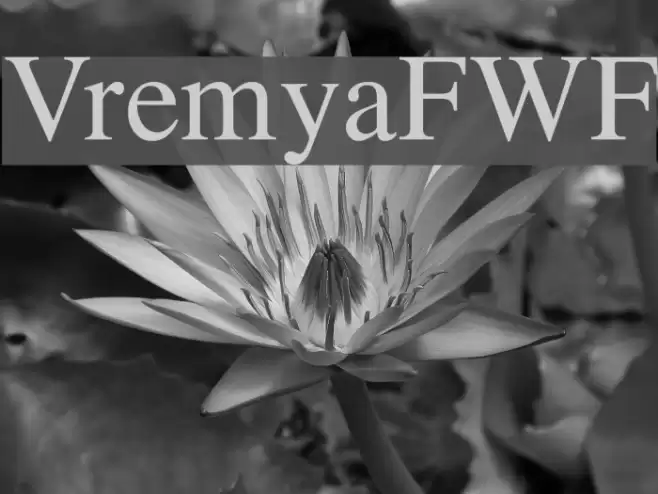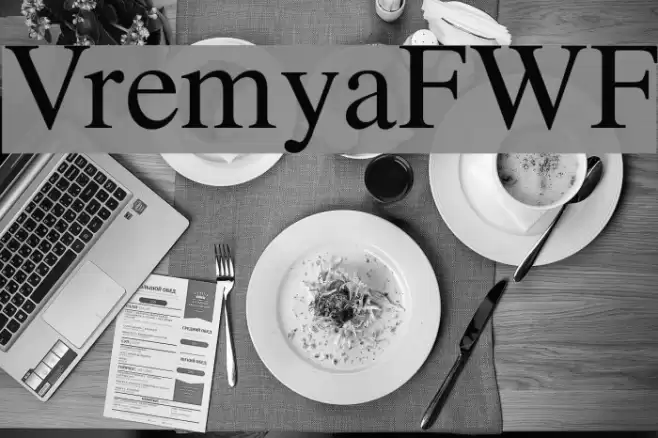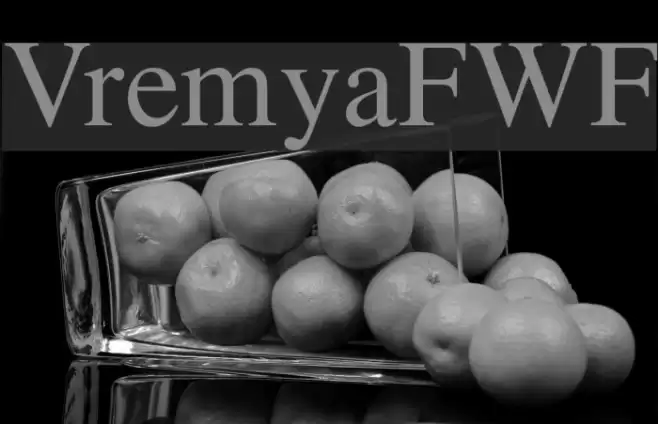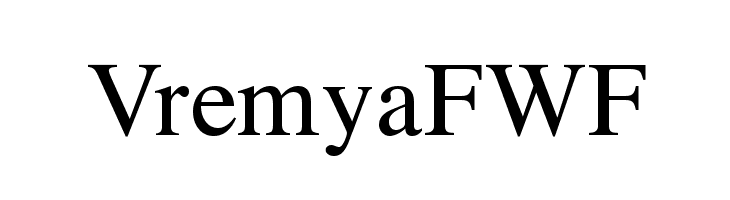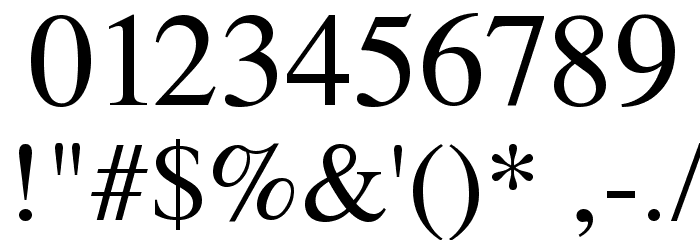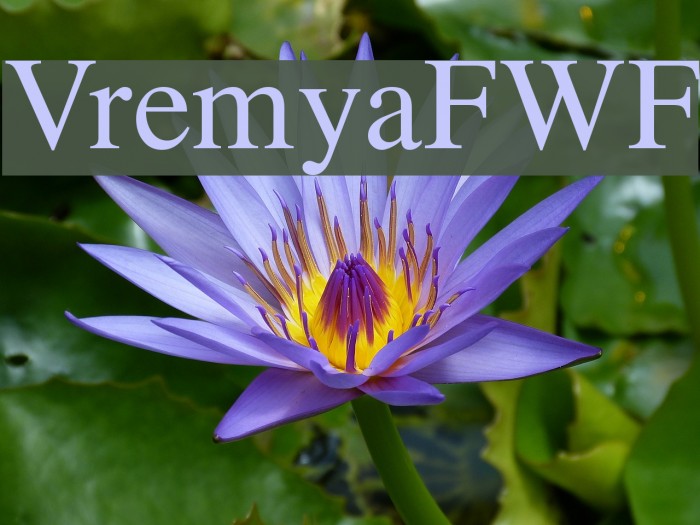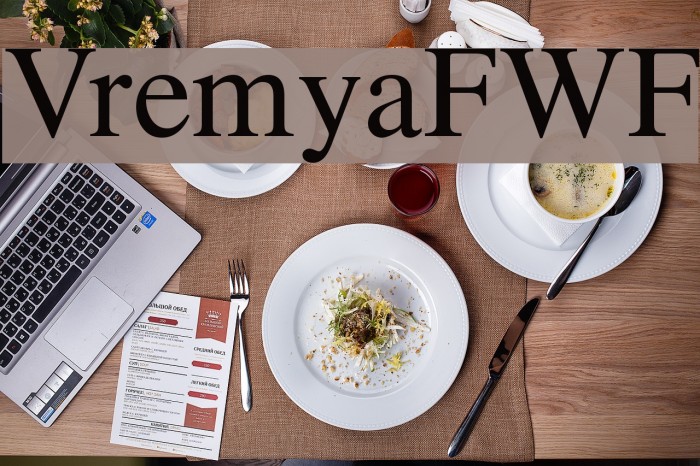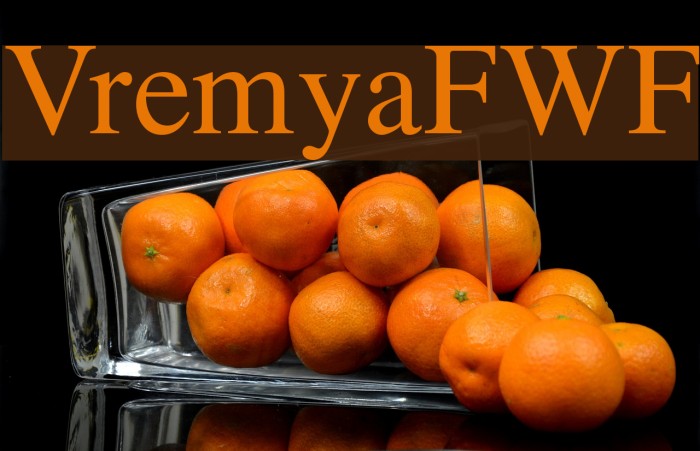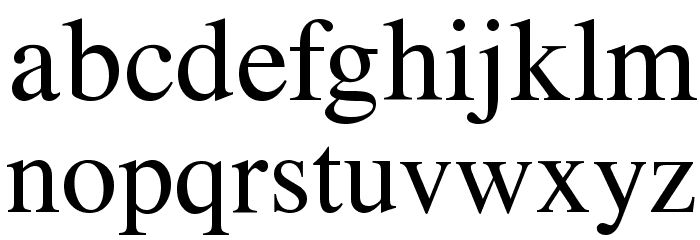
VremyaFWF Font
VremyaFWF Description
This font exhibits a classic serif style with elegant and refined strokes. The uppercase letters are bold and commanding, while the lowercase letters maintain a balanced and harmonious appearance. The numerals are clear and distinct, ensuring readability. Special characters are well-integrated, maintaining the overall aesthetic. The font's design is characterized by its medium contrast in stroke thickness, providing a timeless and sophisticated look. It is suitable for both digital and print media, offering versatility in various design contexts.
A classic serif font with elegant strokes and medium contrast, ideal for sophisticated designs from Uncategorized fonts.
- Proposed Projects: This font is perfect for editorial design, book covers, formal invitations, and branding projects that require a touch of elegance and tradition.
- Overall Style: Classic